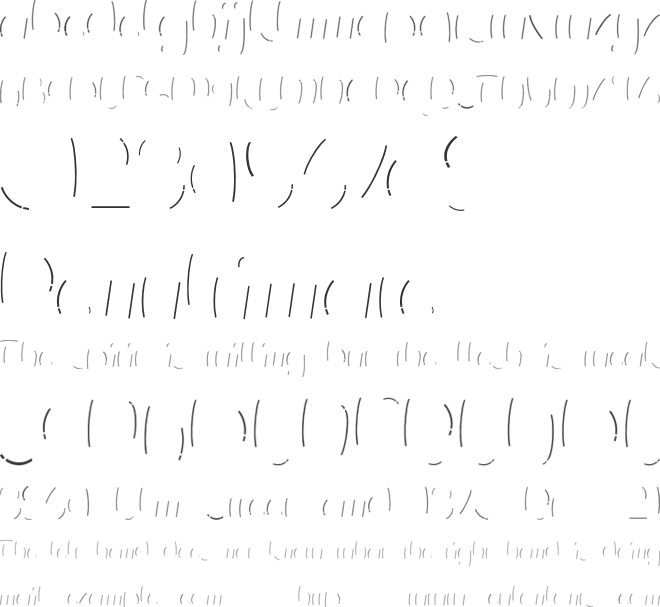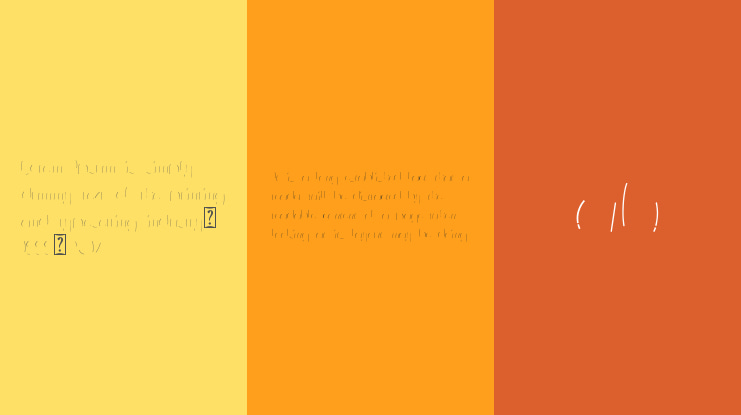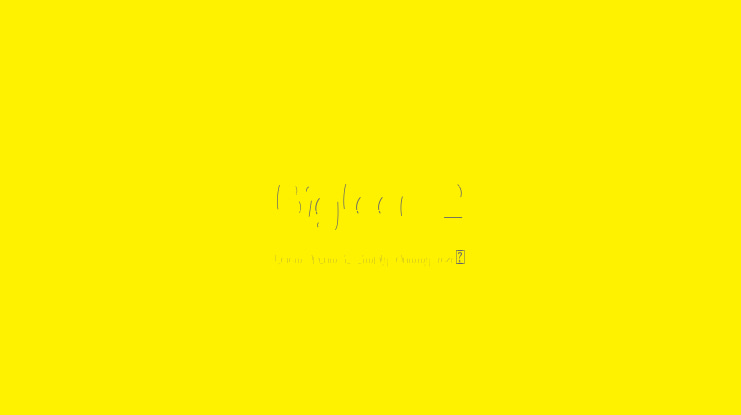
Bigfoot 2 Font Family
Bigfoot is a display font for your design like food design, character design, t-shirt design, etc. This font has 2 layered and multilingualism character. If you download this font you can take free EPS Character. Hope You enjoy.